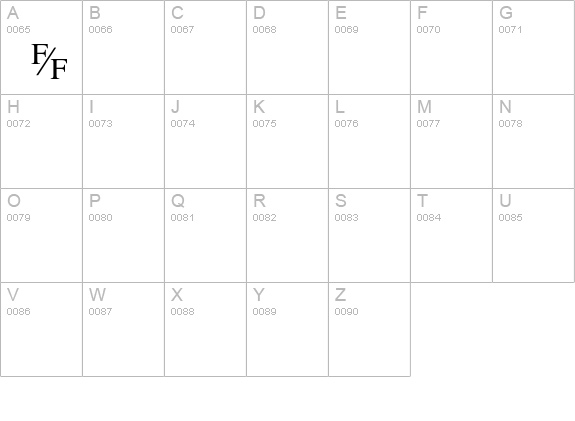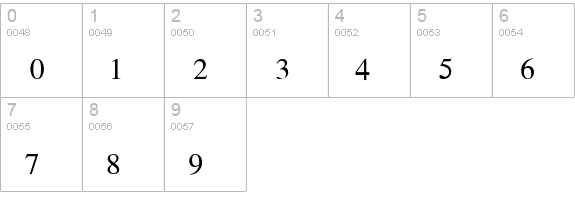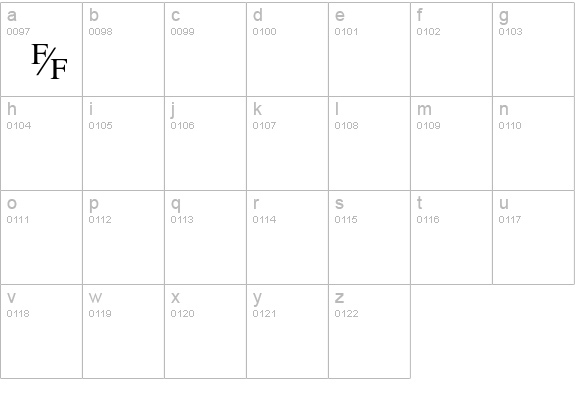
TimeFraction-E Font Details
Introducing TimeFraction-E, a modern and stylish font that effortlessly combines elegance with a touch of playfulness. This versatile typeface captures attention with its unique and eye-catching letterforms, making it perfect for a wide range of design projects. TimeFraction-E is a free font that offers designers the freedom to express their creativity without breaking the bank. With its clean and crisp lines, this font is ideal for both print and digital media, ensuring that your message stands out in any format. Designed with precision and attention to detail, TimeFraction-E is both legible and visually appealing, making it a great choice for headlines, titles, branding materials, and more. Its versatility allows it to adapt to various styles and moods, from elegant and sophisticated to fun and whimsical. Whether you're designing a logo, creating a website, or crafting a social media post, TimeFraction-E is the perfect font to elevate your project to the next level. Its wide range of characters and glyphs ensure that you have all the tools you need to bring your vision to life. Best of all, TimeFraction-E is freely available to download at FontsMarket.com. This means that you can access this exceptional font without any cost, making it an excellent choice for both professional designers and enthusiasts alike. Don't miss out on this incredible opportunity to enhance your design work with TimeFraction-E. Download it today and unleash your creativity!